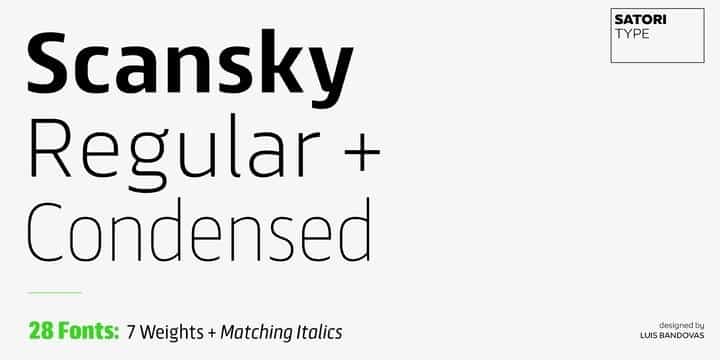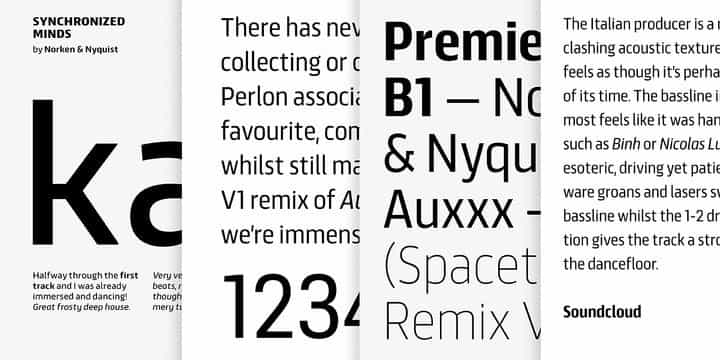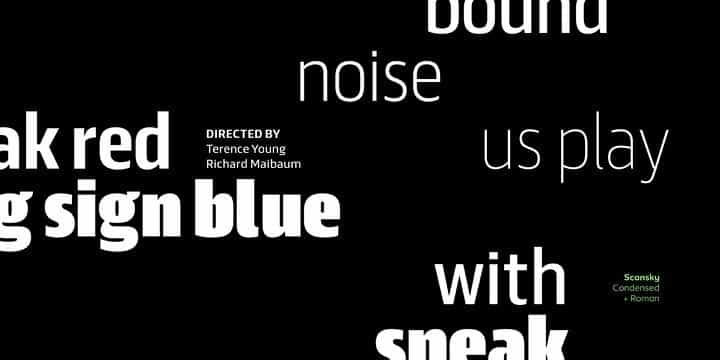
Scansky is a modern humanist font family with classicalist roots. Thus the name. Agile Sans is suitable for a variety of occasions from branding to websites, publications, and application. From casual to formal or refined to bold the font can be used for every need.